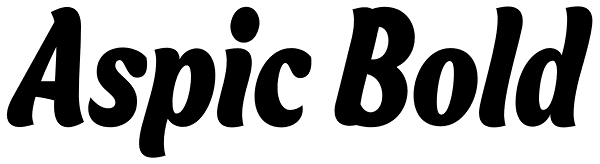
Aspic
Asperity, Asphalt and Aspic, were designed for Another magazine issues 18 and 19, A typeface in three versions, Hard, Soft and Script, three typefaces with the same character shape, where hard is angular, Soft is brushlike, and Script a painted-ish...